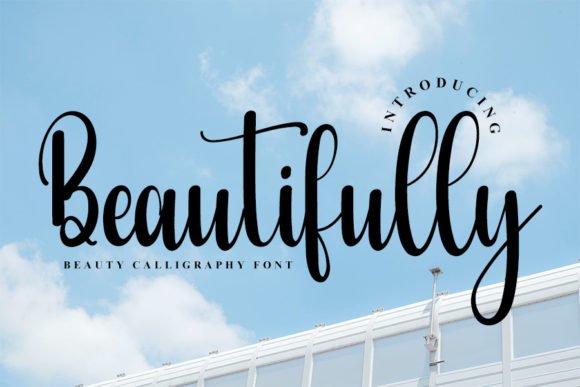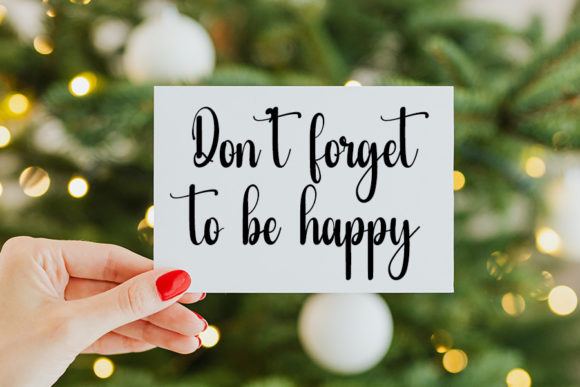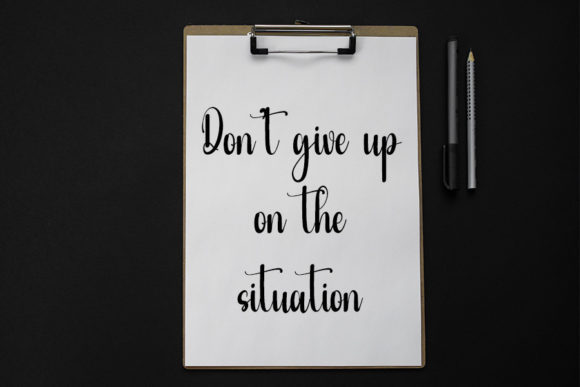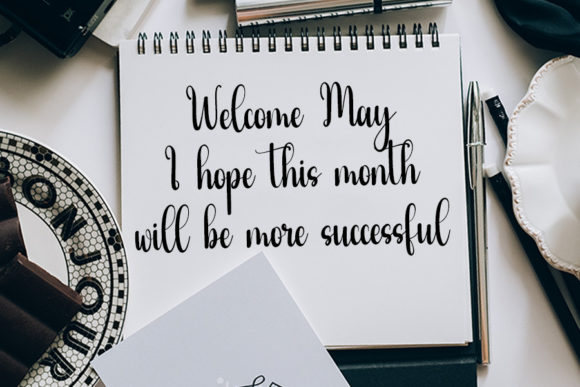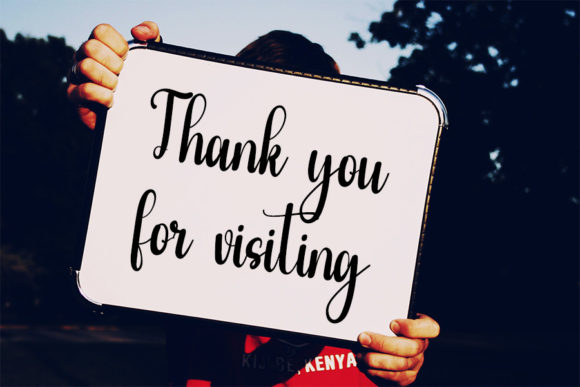
Unleashing Your Creativity with Beautifully Font
As you sit in front of your computer, staring at a blank canvas, the excitement of creating something new begins to build up. You’re eager to bring your ideas to life, but something is missing – the perfect font to set the tone for your project. That’s when you stumble upon Beautifully Font, a stunning handwritten font that exudes a contemporary atmosphere and timeless elegance.
Beautifully Font was designed to elevate your projects, adding a touch of sophistication and refinement to your designs. With its balanced and varied style, this font is the perfect choice for designers looking to add a personal touch to their work. Whether you’re creating a logo, brochure, or website, Beautifully Font is sure to leave a lasting impression.
Beautifully Font Key Features
- Unique Characteristics: Beautifully Font includes a built-in ligature system for improved readability
Designer Review: Beautifully Font
Overall, I was quite impressed with Beautifully Font. It has a lot of potential, and with some tweaks, it could become a standout font in the market. ✨ The font’s elegant and refined design makes it perfect for high-end fashion, luxury brands, or any other niche that requires sophistication.
- ✨ Elegant and refined design that exudes luxury and sophistication.
- ✨ Wide range of weights and styles, making it versatile for various design applications.
- ✨ Beautifully crafted letterforms that are both aesthetically pleasing and easy to read.
- ⚠️ Limited language support, which might be a concern for global brands or companies that require multilingual support.
- ⚠️ Some characters, such as punctuation and symbols, could be improved for better legibility and consistency.
- ⚠️ Not ideal for body text due to its high x-height and ornate details, which can make it difficult to read at smaller font sizes.
Overall, Beautifully Font is a solid choice for designers looking to create a premium and sophisticated visual identity. While it has its limitations, the font’s elegant design and versatility make it a great option for the right projects. With some further development and refinement, I believe Beautifully Font could become a top contender in the font market.
Tips for Getting the Most Out of Beautifully Font
Use Beautifully Font in combination with bold or italic text to add emphasis and create visual interest.
Use Beautifully Font for:
- Body text in creative projects
- Brand identity and logos
Alternatives to Beautifully Font for Designers
Great Vibes Font is a modern script font that exudes a sense of elegance and sophistication. It’s perfect for use in titles, headings, and any other text that requires a touch of glamour. When to use: Wedding invitations, luxury branding, and high-end marketing materials.
Great Vibes Font is similar to Beautifully Font in its elegant and sophisticated style, but it has a more refined and polished feel. Great Vibes Font is also more versatile and can be used in a wider range of applications, from formal to informal.
Pacifico Font is a beautiful script font that evokes the feeling of a tropical paradise. It’s perfect for use in travel and tourism branding, as well as any other industry that requires a relaxed and laid-back vibe. When to use: Travel brochures, outdoor advertising, and eco-friendly branding.
Pacifico Font is similar to Beautifully Font in its elegant and flowing style, but it has a more relaxed and casual feel. Pacifico Font is also more legible and easier to read, making it a great choice for body text.
Carolyna Pro Font is a elegant and sophisticated script font that’s perfect for use in high-end branding and marketing materials. It’s also great for use in fashion and beauty branding, as well as any other industry that requires a touch of luxury. When to use: Luxury branding, high-end marketing materials, and fashion advertising.